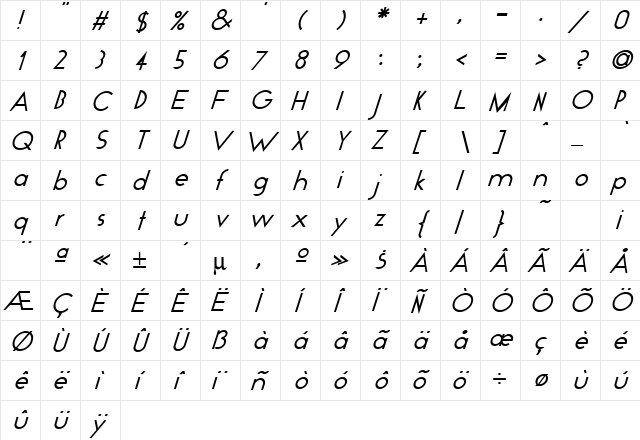
Pommarantz Italic Regular
Design Context for Pommarantz Italic Typeface
Pommarantz Italic takes a measured approach to typography — its balanced proportions and neutral character make it a reliable workhorse for both digital and print work. The dynamic lean of this cut emphasises speed and emphasis in any layout.
Pro Tip: Use Pommarantz Italic for emphasis, pull quotes, and subheadings where its slanted energy can add rhythm to the layout.